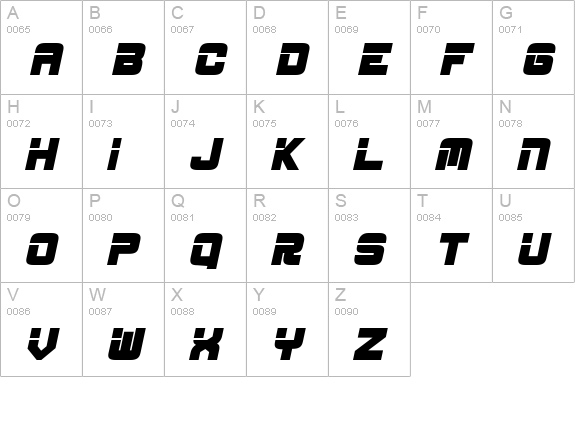
ESP_Bold_Italic Font Details
Introducing ESP_Bold_Italic font - a stunning combination of boldness and elegance that will elevate any design project. This versatile typeface exudes a sense of confidence with its bold strokes and stylish italics, making it perfect for headlines, titles, and branding materials. The ESP_Bold_Italic font is not only visually appealing but also highly readable, making it a top choice for both print and digital designs. Best of all, this exceptional font is available for free download at FontsMarket.com. Take advantage of this amazing offer and enhance your projects with the striking beauty of ESP_Bold_Italic. Download now and add a touch of sophistication to your designs with this captivating typeface.